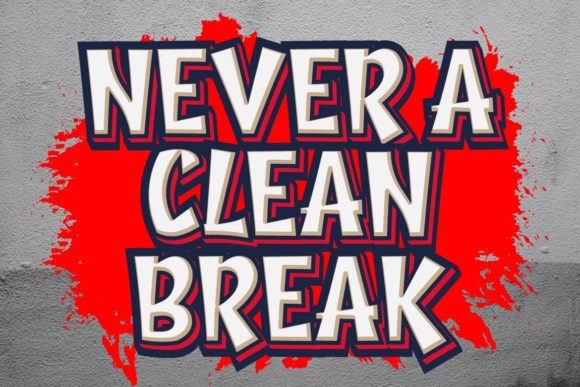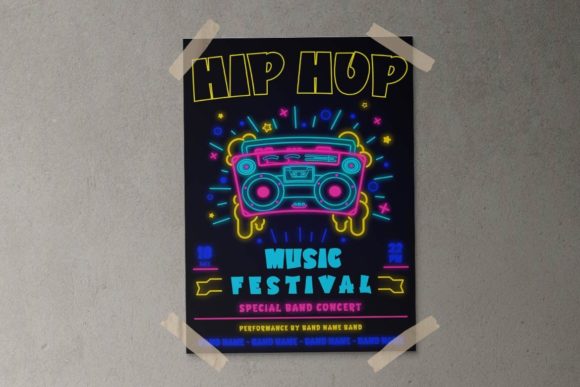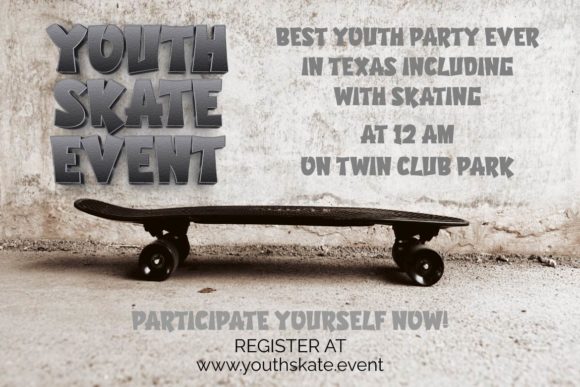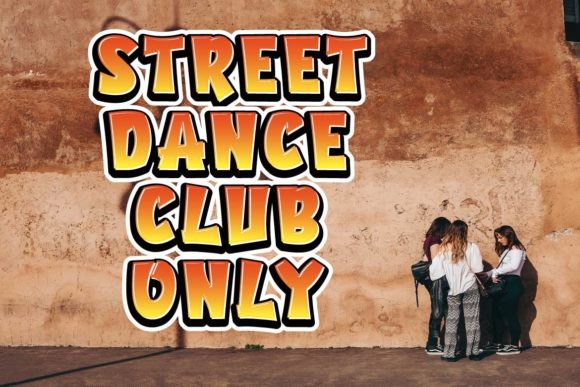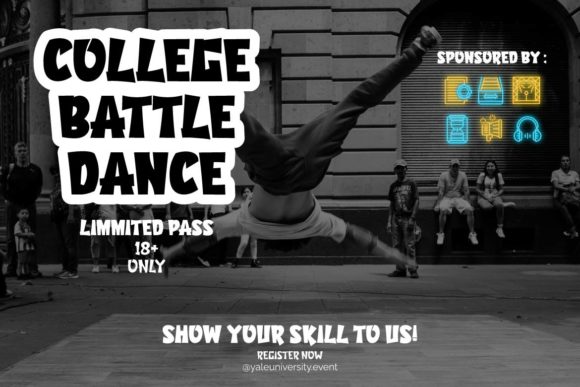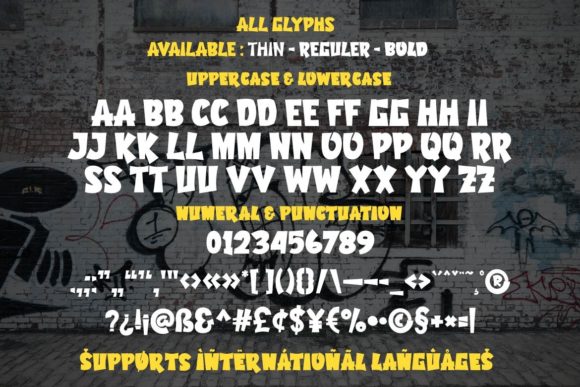
Arogun Font: The Ultimate Graffiti-Styled Display Font for Modern Designs
Are you a designer or crafter looking for a font that can add a touch of edginess and modernity to your designs? Look no further than Arogun Font, an awesome graffiti-styled display font that exudes a futuristic, street art vibe. In this article, we’ll dive into the features and benefits of Arogun Font, and explore how it can elevate your designs to the next level.
What is Arogun Font?
Arogun Font is a unique and stylish display font that is perfect for designs that require a bold and eye-catching look. With its graffiti-styled letters and futuristic vibe, Arogun Font is ideal for creating stunning designs that demand attention. Whether you’re working on a t-shirt design, logo, advertisement, or clothing label, Arogun Font is the perfect choice.
Key Features of Arogun Font
- Graffiti-Styled Letters: Arogun Font features bold, graffiti-styled letters that are sure to make your designs stand out.
- Futuristic Vibe: The font’s futuristic vibe gives it a modern and edgy feel that’s perfect for designs that require a cutting-edge look.
- Display Font: Arogun Font is a display font, making it perfect for headlines, titles, and other design elements that require a bold and eye-catching look.
- Versatile: Arogun Font is versatile and can be used for a wide range of designs, including t-shirts, sportswear, logos, advertisements, clothing, and more.
Benefits of Using Arogun Font
So, why should you choose Arogun Font for your designs? Here are just a few benefits of using this amazing font:
- Adds Edginess: Arogun Font adds an edgy and modern touch to your designs, making them stand out from the crowd.
- Perfect for Streetwear and Sportswear: The font’s graffiti-styled letters and futuristic vibe make it perfect for streetwear and sportswear designs.
- Increases Visibility: Arogun Font’s bold and eye-catching design ensures that your message gets noticed, making it perfect for advertisements and promotional materials.
Design Ideas Using Arogun Font
So, how can you use Arogun Font in your designs? Here are a few ideas to get you started:
- T-Shirt Designs: Use Arogun Font to create bold and eye-catching t-shirt designs that are sure to turn heads.
- Sportswear Designs: Add a touch of edginess to your sportswear designs with Arogun Font.
- Logo Designs: Use Arogun Font to create modern and stylish logos that reflect your brand’s personality.
- Advertisements: Make your advertisements stand out with Arogun Font’s bold and eye-catching design.
In conclusion, Arogun Font is an amazing graffiti-styled display font that is perfect for designers and crafters looking to add a touch of edginess and modernity to their designs. With its futuristic vibe and bold, eye-catching letters, Arogun Font is sure to elevate your designs to the next level. So why wait? Download Arogun Font today and start creating stunning designs that demand attention.